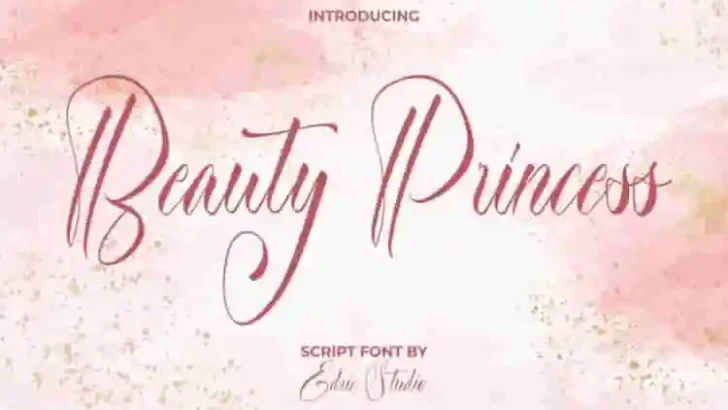
Beauty Princess Font is a beautiful script font with a stylish and royal touch. This typography is so carefully crafted that it creates an almost flawless typeface. The radiant princess aura makes this font suitable for any industry, such as accessories, beauty clinic, boutique, cosmetic, event organizer, fashion, florist, furniture, homeware, interior designers, jewelry, perfume brand, … Continue reading Beauty Princess Script Font